30 Best Font for Movie
30 best font for movie is an attractive magnet for movie viewers. Viewers could analyze and make perspectives about the plot of movies they will watch. Notice these best fonts from UICreative. You could apply it for your next movie whether it is a short or series movie.
Amanda Vinola – Best Font for Romantic Movies
Well done! Congratulation on a romantic movie ever because it always gets people’s attention. Most women in the world love romantic movies. The plot could be high school love, widow falls in love, boss and secretary fall in love, everything which full of passion and romantic scene. Whether to have comedy romantic movie, it still grabs attention from the public, especially if there is beautiful and handsome stars who contribute to it.
Dream Lover Signature – Best Font for Fantasy Movies
For action and fantasy movies, the title should be mysterious but sweet. The gradation on its color of the title makes it perfect to reflect the fantasy effect toward the movies. What do you think to put some action during the fantasy plot?
Amanda Signature
The biography movies need something natural and clear. This font is suitable to explore historical drama, animation, and educational movies. If you ever watch King Kong, Simba, and similar movies related to animals, you will see this font as their title.
Raymond Caroline Bush
This font is suitable for semi horror and thriller movies. It is not full of frightened and criminals, but the movie is usually just like it goes. It is normal like a mini-series. If you have ever watched Negotiation, this is good to see this font in it or it could be a similar font type. However, This font is also suitable for sad ending movies like April Snow or A Moment to Remember.
Redmond Fashion
A modern script font is the best for adventure movies. For a team that wants to rescue someone or to solve the clues will be good to have this font for its title. There will be a curiosity inside the movie and the dark background after the shine font color reflects how it suits adventure movies.
Absolute Nature
An elegant script font is full of darkness. It is suited for horror and thriller movies. Resident Evil is just an example of the suit movie in this font. It depends on how you would put the font in your title, Narnia could use it too although it is a fantasy movie. The plot and venue of filming influence the title application.
Monilea Brush
Travel time or scientific movies need this font to empower their story. The legend of the city including the life and culture of the people in it influences the movie script. Hollywood, Bollywood, Korean, and ASEAN movies could use this font to promote the movie. At least viewers would be curious about its story.
Gardarena Script
Gardarena font does not only look vintage, but it also brings darkness. Like a clueless, a movie is about to find something which cannot be found easily. Even to pass the time, the clue is limited. If you produce similar movies, try to use this font.
Spice Wallet Script
Action and scream movies blend into romantic scenes. This is the most suitable font title for that movie genre. Talking about Eclipse, New Moon, and the last sequel of it are suitable in this font.
Sirikaya Hand Lettering
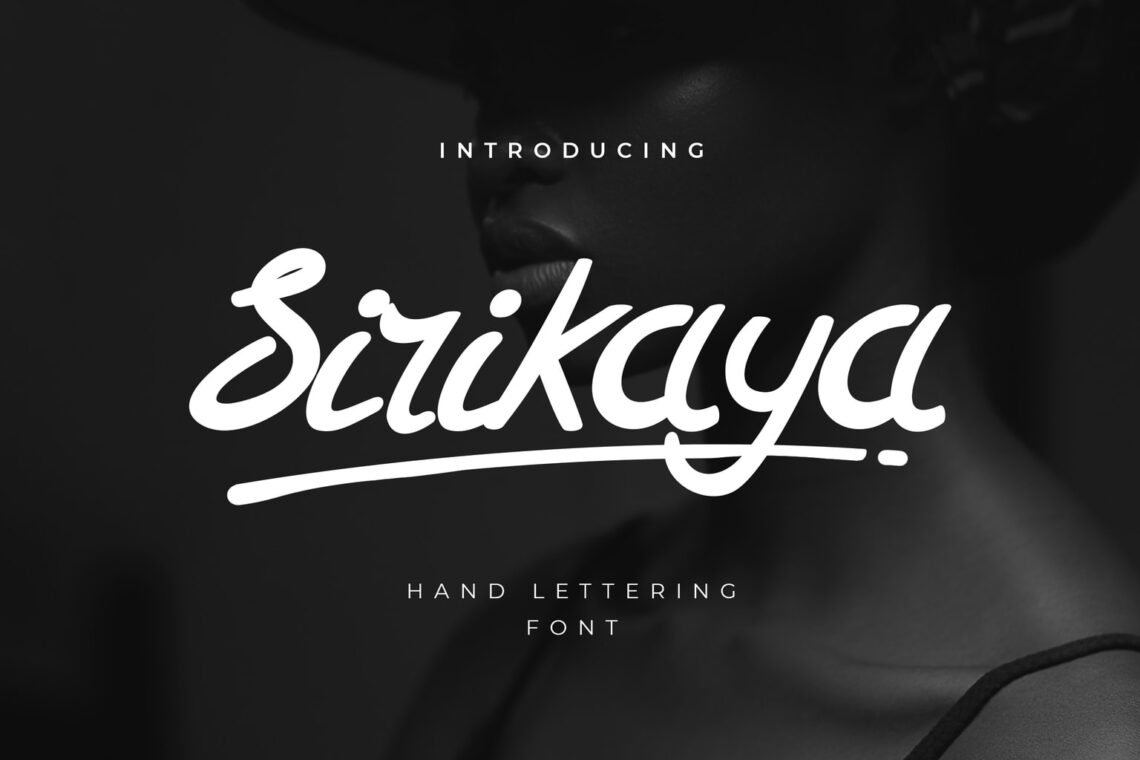
Srikaya hand lettering for more jokes is good. Therefore, if you have a comedy movie, try to apply this font as your title. Friendzone movie and drama would be good to have this font.
Quick Junior
Welcome to the kid’s zone. This shining and fancy font is suitable for cartoon and children’s animation. However, it is more likely to animal wildlife or fairy tale concept. Let us make some examples like Peter pan, Snow White, Cinderella, and another 3D movie for children.
Stone Miracle Brush
Whether you like to watch the detective movies genre or not, you will see this title font in it. No matter the time to tell this movie or the time travel plot in it, everything related to nonfiction mystery will look good with this font.
Lorenia Handwritten
A story about inspiring people, especially women will look good in cherish template and font. Kabhi Kushi Kabhi Gham from the Bollywood series could look great in this title font. Although it is a mellow drama movie, it gives more lessons on culture and family. On the other hand, Kiraz Mevsimi, a Turkish Drama has a similar content of font title like this.
Beasticle Handwritten
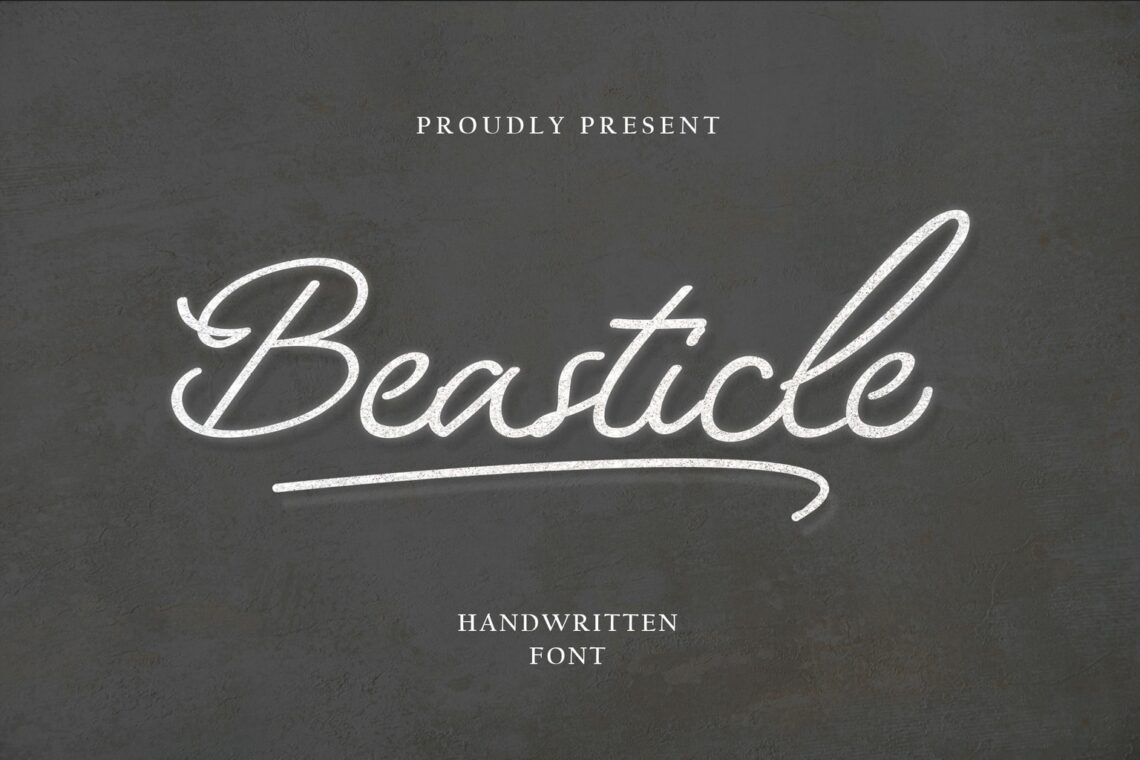
A metropolitan city with a dark and light side looks great to perform in a movie. The title font is a way to explain life in a big city including the drama to face every day.
Light Paprica Handwritten
It is not only for movies, but it is also for music titles. Lion Heart, a title song from SNSD applied similar font like this. To perform it in movies, it is suitable for the drama and scandal genre of movies.